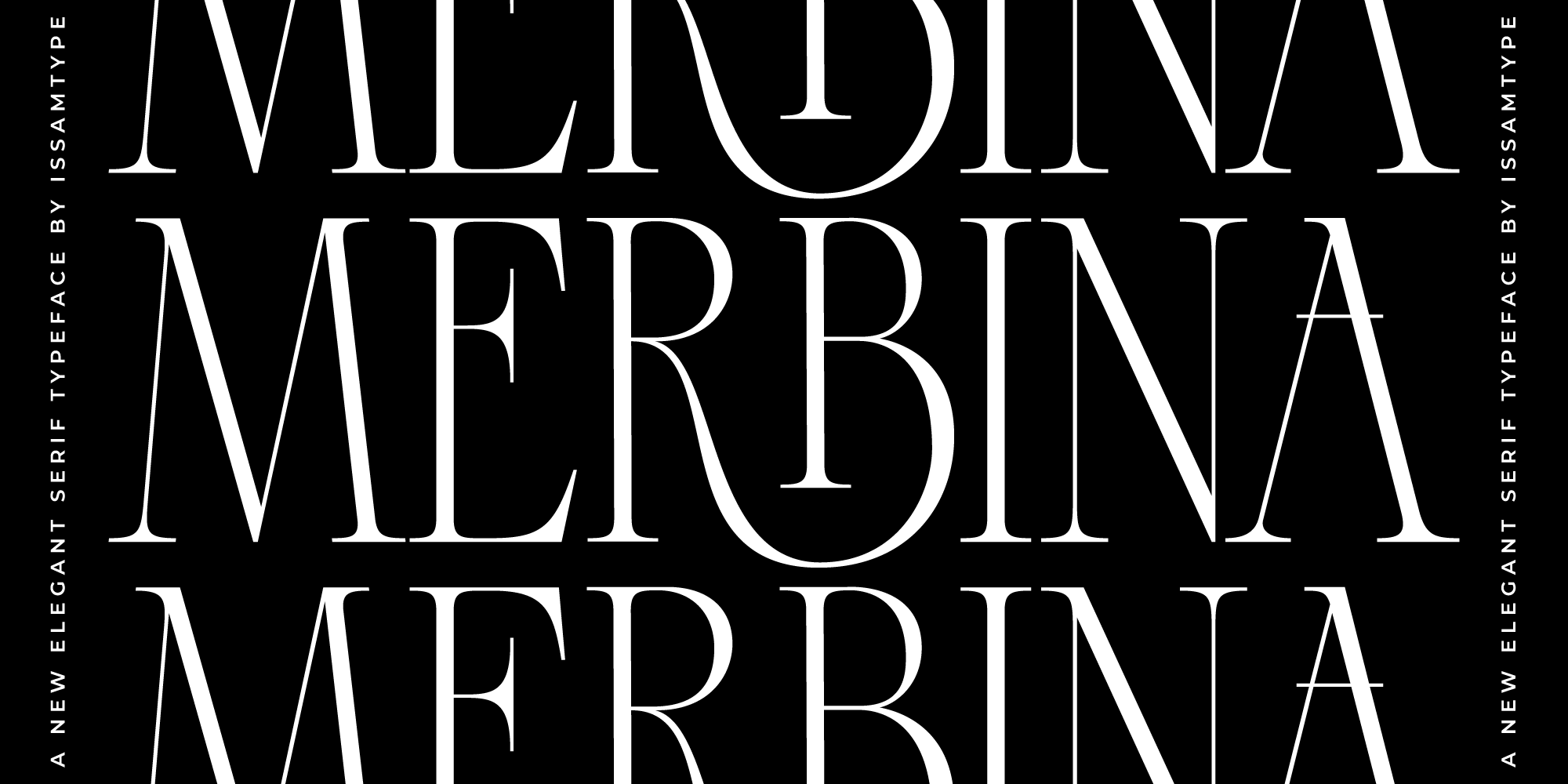
Merbina Font is excellent for contemporary design applications including modern branding, tech startups, digital interfaces, creative portfolios, fashion magazines, lifestyle blogs, innovative marketing campaigns, and cutting-edge web design. This stylish typeface brings fresh sophistication and modern elegance to projects that demand distinctive visual personality.
What makes Merbina Font exciting is its perfect fusion of geometric precision with organic warmth that creates an approachable yet sophisticated character. The font features carefully balanced letterforms with subtle curves and refined details that feel both contemporary and timeless. Its versatile personality adapts seamlessly to various design contexts while maintaining consistent visual appeal.
The Merbina Font family includes comprehensive weight options such as Thin, Light, Regular, Medium, Bold, and Black variations, each available in both upright and italic styles. This extensive range provides complete design flexibility for creating sophisticated brand systems and complex typographic hierarchies across multiple platforms.
This versatile contemporary typeface represents the evolution of modern design aesthetics and digital communication. Creative agencies and forward-thinking brands choose Merbina Font Free Download for its exceptional ability to communicate innovation and style. The font's balanced character makes it perfect for brands that want to appear both professional and approachable, from tech companies to lifestyle brands. Its contemporary appeal ensures relevance in today's fast-paced digital landscape while maintaining the timeless quality that defines exceptional design work.